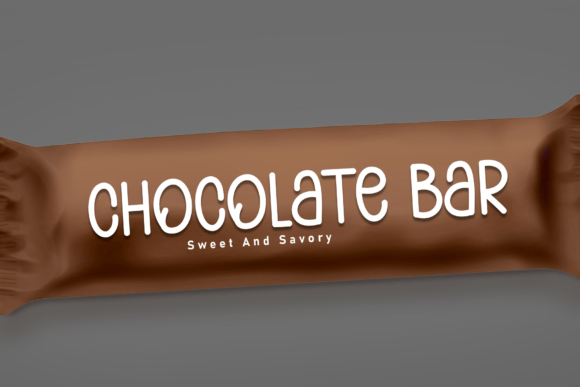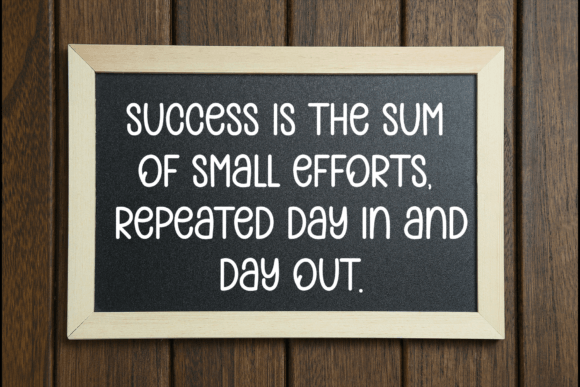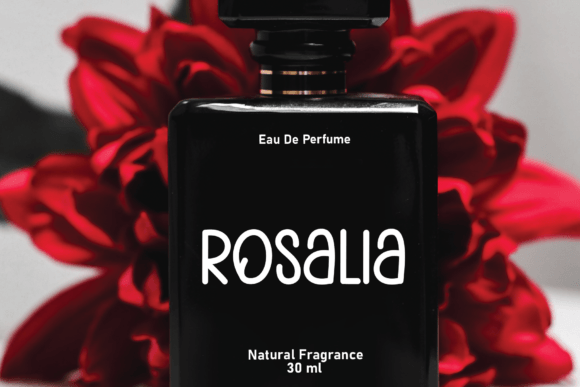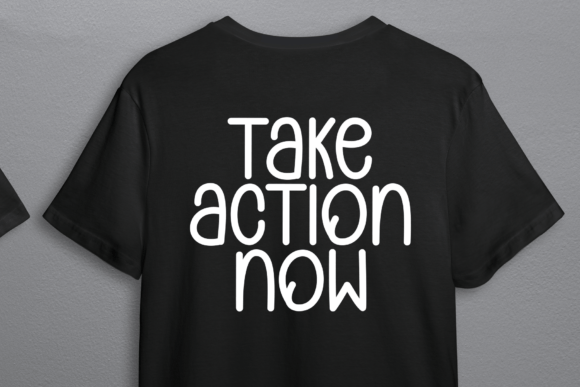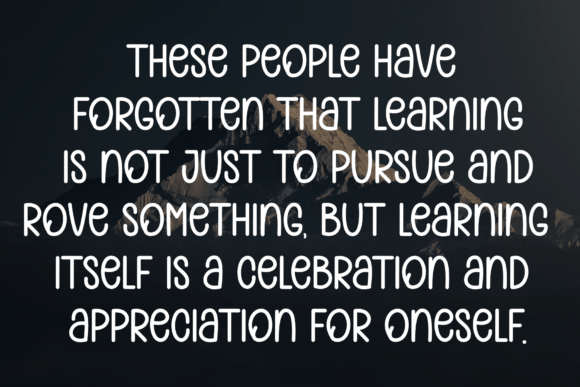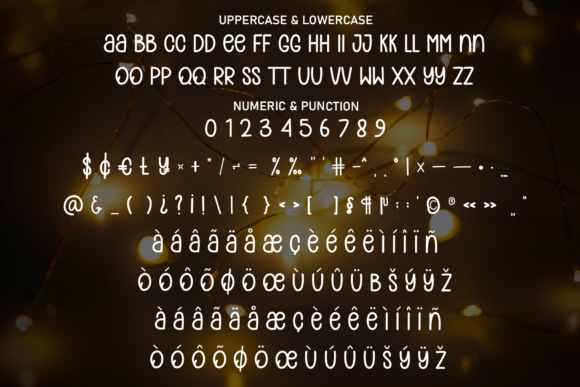
Introduction to Lights Christmas Font
As you sit down to create the perfect holiday card or wedding invitation, the spark of inspiration strikes. You envision a whimsical design that captures the essence of the season, but the right font seems elusive. Enter the Lights Christmas Font – a charming, handwritten display font that embodies the joy and warmth of the holiday season.
With its delightful nuances and friendly personality, this font is a design resource like no other. Whether you’re a seasoned designer or just starting out, the Lights Christmas Font is a high-quality addition to your creative arsenal. Its transparent background and effortless feel make it a breeze to use, ensuring your project shines with a lighthearted touch.
Key Features of Lights Christmas Font
- High-quality design resource perfect for creative projects, including Christmas cards, invitations, and advertisements.
- Features a transparent background, allowing for easy layering and customization in your design.
- Available in a range of sizes, from 12pt to 72pt, to suit your design needs.
- Unique, festive design elements, including lights, snowflakes, and other holiday-themed graphics, to add a touch of magic to your creative project.
- Perfect for designers, artists, and crafters looking for a high-quality, free design resource to elevate their holiday-themed projects.
Honest Review: Lights Christmas Font
I recently came across the Lights Christmas Font and I’m excited to share my honest review. As a designer, I’m always on the lookout for high-quality design resources that can elevate my creative projects. This font definitely delivers.
- High-quality design: The Lights Christmas Font is beautifully crafted with intricate details that will add a touch of festive magic to any project.
- Transparent background: The transparent background option allows for seamless integration with any design element.
While the Lights Christmas Font is a great addition to any design arsenal, I do have a few minor criticisms. The font is quite specific to the Christmas theme, so it may not be suitable for projects outside of this time of year. Additionally, the font may not be as versatile as some other design resources, but this is a minor trade-off for its unique charm.
Overall, I’m impressed with the Lights Christmas Font and I’m excited to use it in my future creative projects. If you’re looking for a high-quality design resource to add some festive flair to your work, this font is definitely worth checking out.
The Lights Christmas Font is a high-quality, free download font perfect for any creative project. It features a transparent background, making it easy to incorporate into your design.
Getting the Most Out of the Lights Christmas Font
Is the Lights Christmas Font a high-resolution design resource?
Yes, the Lights Christmas Font is designed with high-quality graphics and is suitable for use in various design applications, including print and digital media. The font’s transparent background allows for easy integration with images and other design elements, making it an ideal design resource for creative projects.